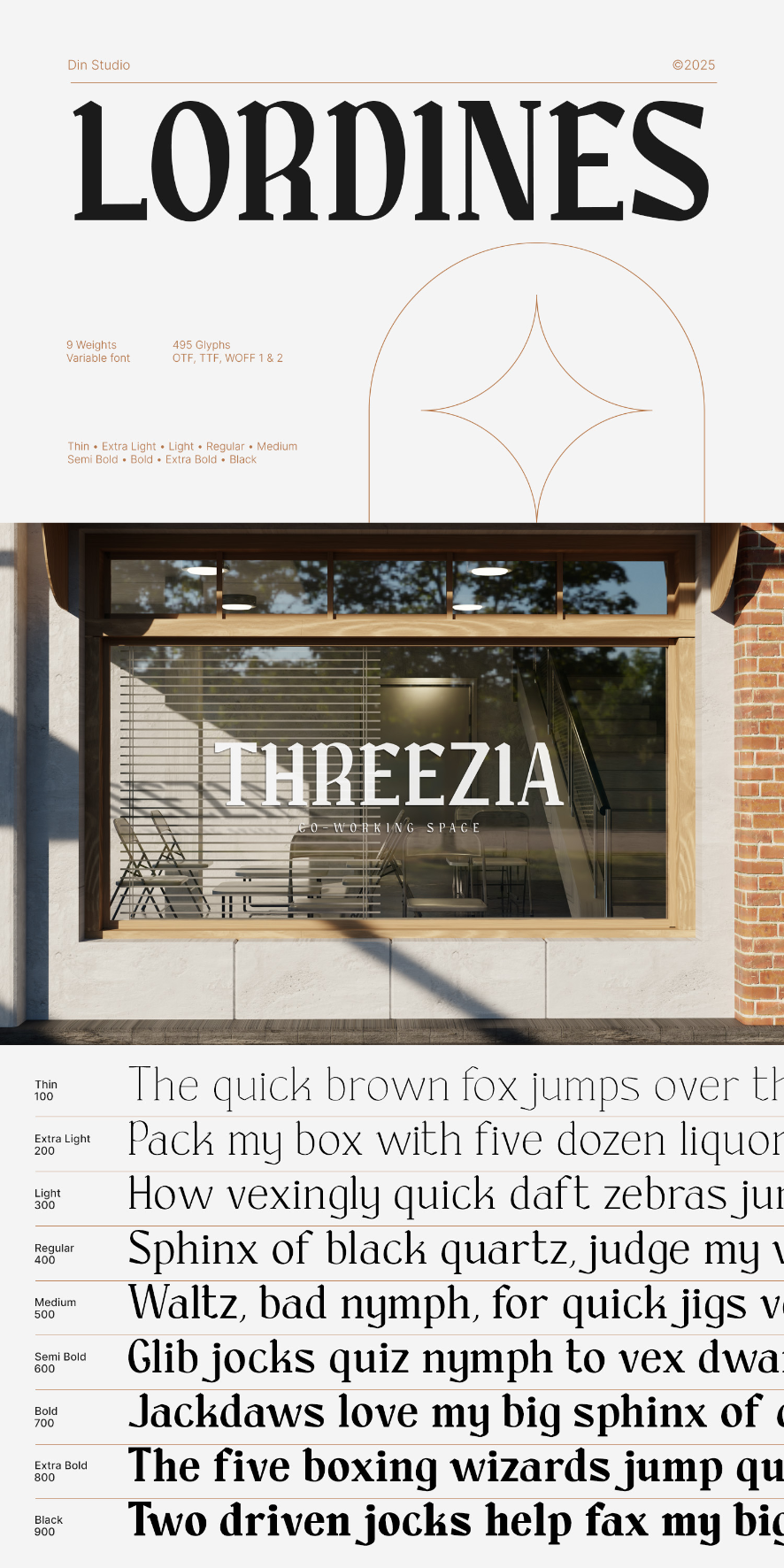
Lordines Font
About Lordines
Lordines is a display serif font family that bridges the elegance of old-style serifs with a refined modern twist. Featuring 9 expressive weights—from Thin to Black—and a variable font option for smooth weight control, Lordines brings timeless sophistication to headlines, editorial layouts, and branding with a fresh contemporary edge. In addition, enjoy the features here.
Lordines’s different weight fonts :
- Thin
- Extra Light
- Light
- Regular
- Medium
- Semi Bold
- Bold
- Extra Bold
- Black
Lordines fits in logos, branding, packaging, posters, editorial and many more designs. Find out more ways to use this font by taking a look at the font preview.